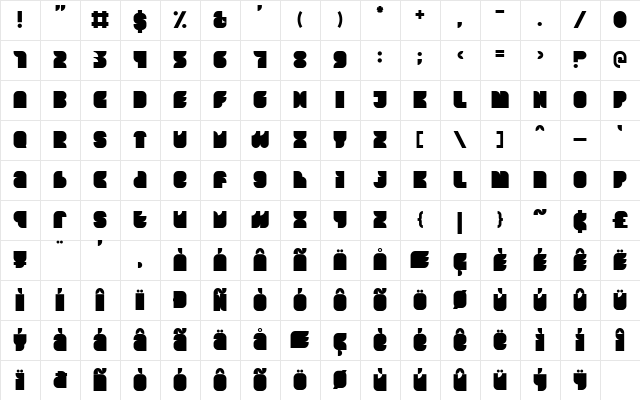
Complete CHINGCHAY Regular glyph index. Displaying only characters natively supported by CHINGCHAY Regular font.
CHINGCHAY is a composed and adaptable typeface that performs quietly and consistently across a wide range of design contexts.
Who designed the CHINGCHAY Regular font?